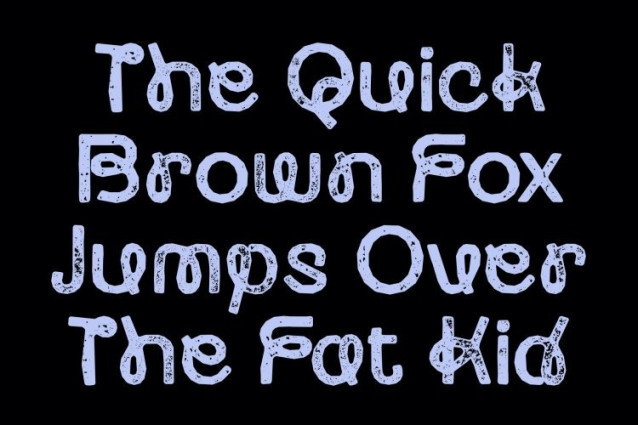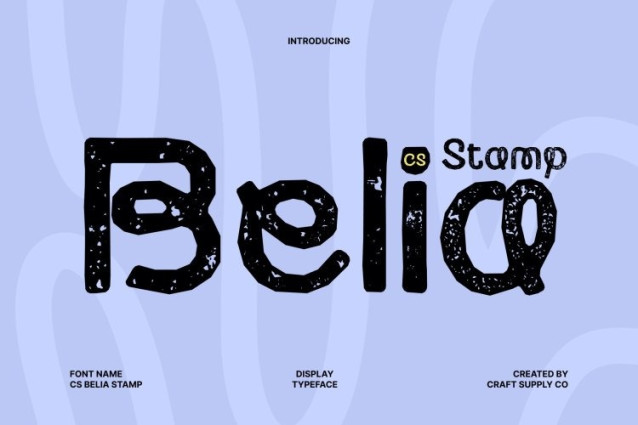
CS Belia Stamp Font
CS Belia Stamp Font This is a playful display sans-serif font defined by its curved and swirling shapes. Flowing curves and lively twists give each letter a cheerful, animated personality, while the stamp effect adds a textured, slightly worn surface that enhances its handcrafted appeal. The result is a font that feels cute, energetic, and visually engaging.
Dynamic, Cheerful, and Eye-Catching
The dynamic motion in creates a strong sense of movement and joy. Its rounded forms and expressive rhythm naturally draw attention, making text feel alive and full of personality. The stamped texture adds depth and character, ensuring designs feel warm, tactile, and memorable.
Perfect for Fun and Lighthearted Designs
Ideal for event posters, playful logos, children’s projects, and product packaging, shines in designs that celebrate fun and creativity. Its whimsical nature makes it especially suitable for brands and visuals that want to communicate friendliness, positivity, and youthful energy.
Versatile with a Whimsical Personality
From lively brand identities to cheerful promotional graphics, adapts easily across a wide range of creative projects. Its combination of energetic curves and stamped texture delivers a distinctive look that balances charm, creativity, and visual impact perfect for designs that need a joyful and expressive touch.